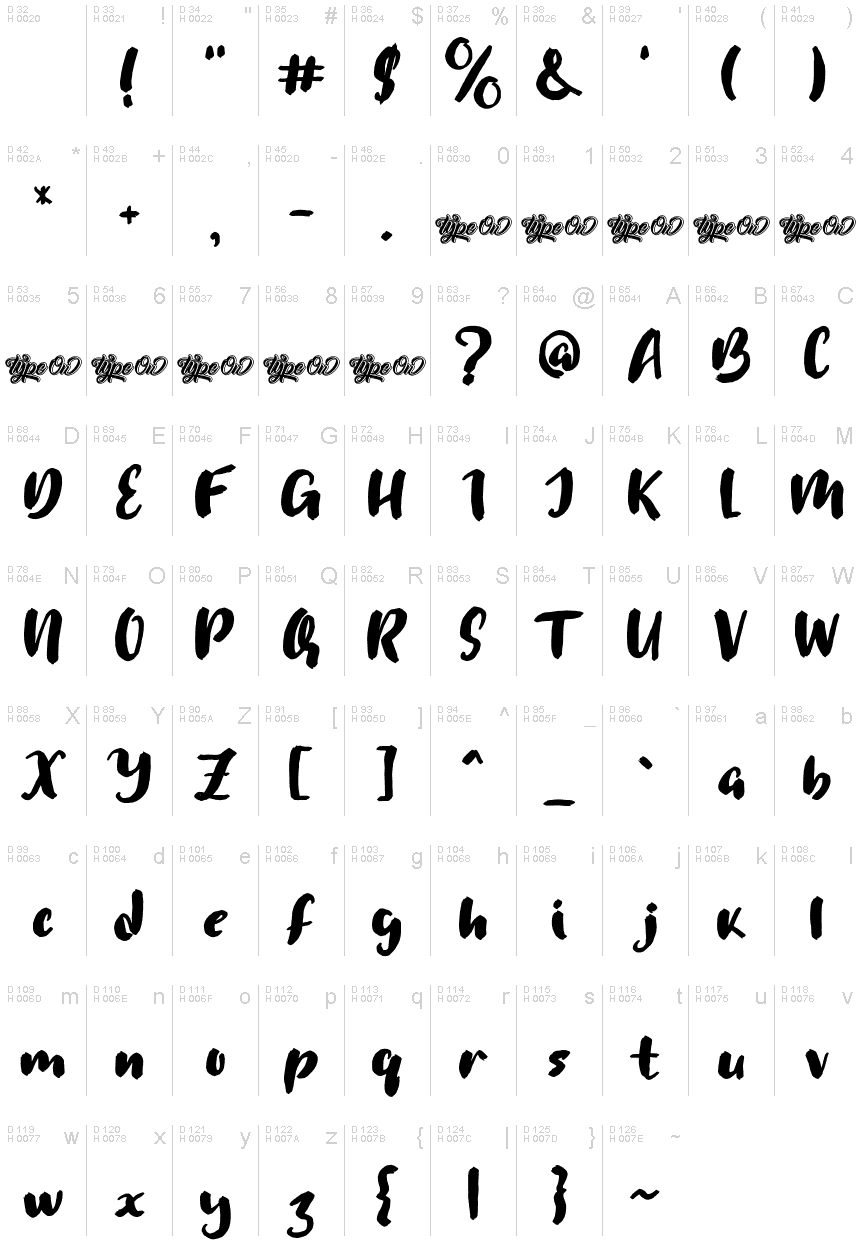
Grason-Regular
Grason, the eye-catching brush font designed by Type on Studio, is perfect for any project that needs a bold and expressive touch. Whether you're looking to create street art, poster designs, logos or packaging, Grason is the perfect choice.